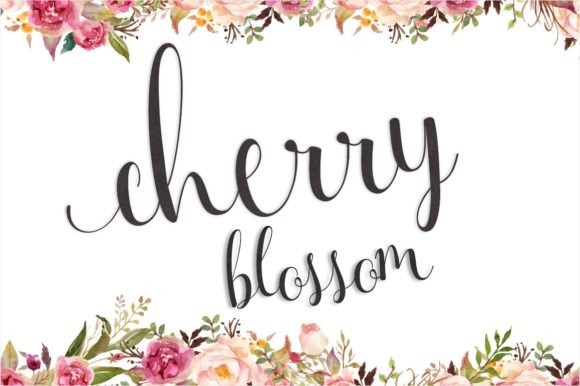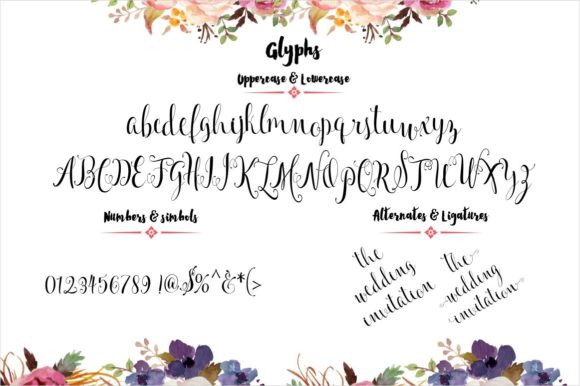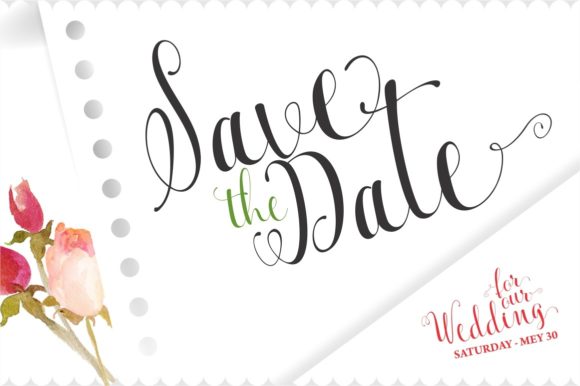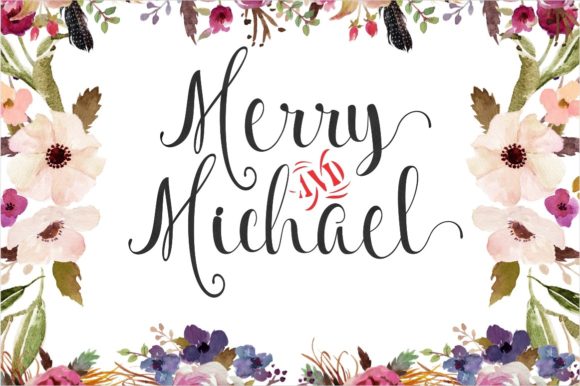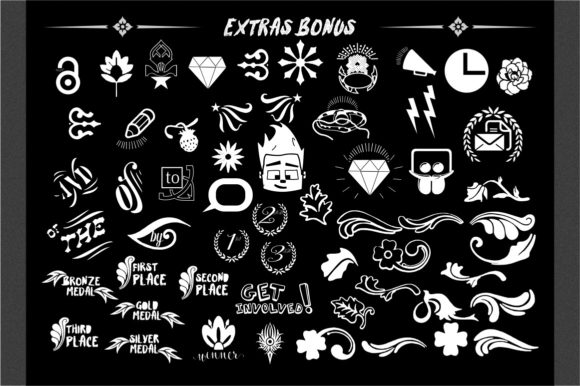
Have you ever been in the midst of a creative project, struggling to find the perfect font to bring your vision to life? I know I have! The blank page stares back at me, taunting me with its emptiness. That’s when I discovered the Cherry Blossom Font – a game-changing duo of handwritten and dingbats that has revolutionized my design process.
This versatile font is a masterclass in elegance and whimsy, making it the perfect addition to any design requirement. Whether you’re crafting branding materials, designing stationery, or creating invitations for a special event, the Cherry Blossom Font is sure to impress. Its unique blend of handwritten and dingbats elements adds a touch of personality to any project, making it a valuable asset for designers looking to stand out from the crowd.
With the Cherry Blossom Font, the possibilities are endless, and the results are nothing short of breathtaking. So why settle for a generic font when you can add a touch of magic to your designs? Let the beauty of the Cherry Blossom Font bloom in your next project.
Key Features of Cherry Blossom Font
- Font Style: A beautiful, elegant, and whimsical script font with a Japanese-inspired design, perfect for adding a touch of romance and sophistication to your designs.
- Unique Characteristics: Features intricate, hand-drawn details and subtle texture, giving it a unique and organic feel that sets it apart from other script fonts.
Designer Review: Cherry Blossom Font
I recently had the chance to work with the Cherry Blossom Font, and I must say it’s a mixed bag. Here are my thoughts:
- Beautiful Script Style – The font has a lovely, flowing script style that’s reminiscent of traditional Japanese calligraphy.
- High-Quality Vectors – The font’s vectors are crisp and clear, making it perfect for print and digital applications.
- Customization Options – The font comes with a range of customization options, including size, color, and line spacing.
- Limited Character Set – The font’s character set is limited to basic Latin characters, which may not be suitable for languages that require a wider range of characters.
- Not Ideal for Headlines – While the font is beautiful, it’s not particularly well-suited for headlines or titles due to its script style.
Overall, I think the Cherry Blossom Font is a lovely addition to any designer’s toolkit. While it has its limitations, it’s perfect for projects that require a touch of elegance and sophistication. With a little creativity, you can use it to create truly stunning designs. Just be mindful of its limitations and use it where it shines best.
The Cherry Blossom Font is ideal for:
- Spring-themed designs and promotions
- Luxury branding and packaging
- Formal events and celebrations